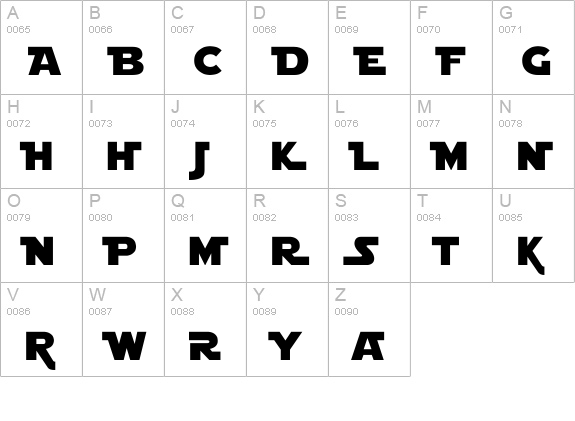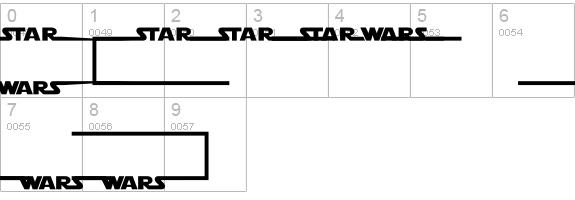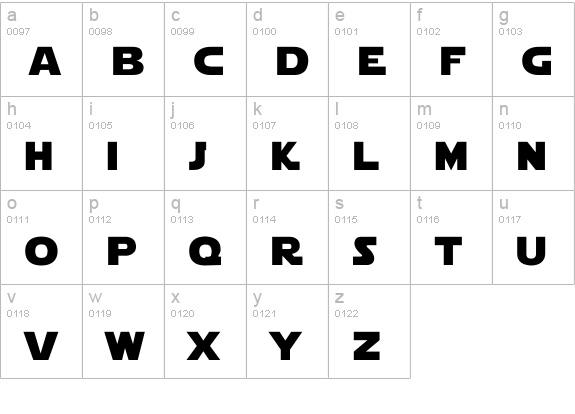
Star Jedi Logo MonoLine font is a captivating and alluring typeface that exudes a sense of adventure and excitement. This font is perfect for anyone looking to add a touch of galactic charm to their design projects. With its sleek and modern design, it brings to mind the iconic typography seen in the Star Wars franchise. What makes Star Jedi Logo MonoLine font even more appealing is the fact that it is completely free. Yes, you read that right! You can freely download this font at FontsMarket.com. This means that you can use it for personal or commercial projects without any restrictions or limitations. Whether you're designing a logo, creating a poster, or crafting a website, this font will undoubtedly elevate your work to a whole new level. The monoline style of Star Jedi Logo MonoLine font adds a sense of simplicity and elegance to any design. Its clean and smooth lines make it easy to read, while still maintaining a sense of uniqueness and originality. The carefully crafted letterforms are reminiscent of the futuristic and otherworldly aesthetics found in the Star Wars universe. With Star Jedi Logo MonoLine font, you have the power to transport your audience to a world far, far away. So don't miss out on this amazing opportunity to enhance your designs with this exceptional font. Visit FontsMarket.com today and download Star Jedi Logo MonoLine font for free. May the force of creativity be with you!